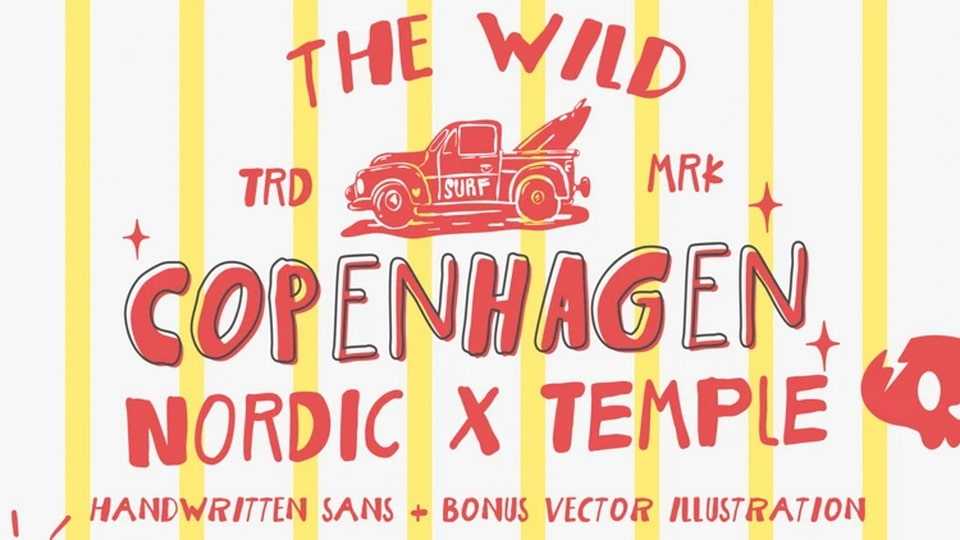
Download The Wild Copenhagen font, a bold and untamed sans-serif typeface that captures the spirit of the wild north, inspired by the raw, rebellious vibes of Nordic street.